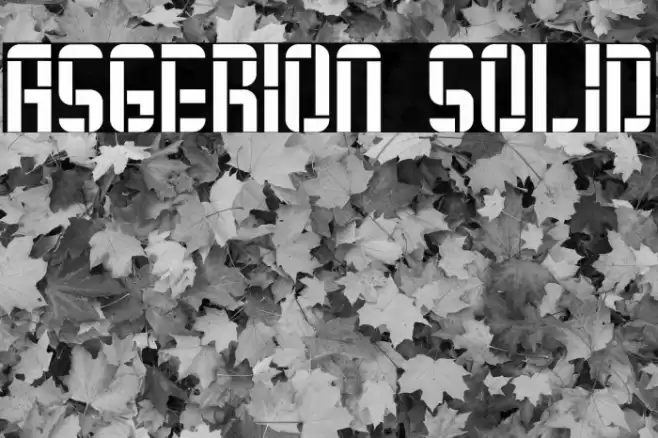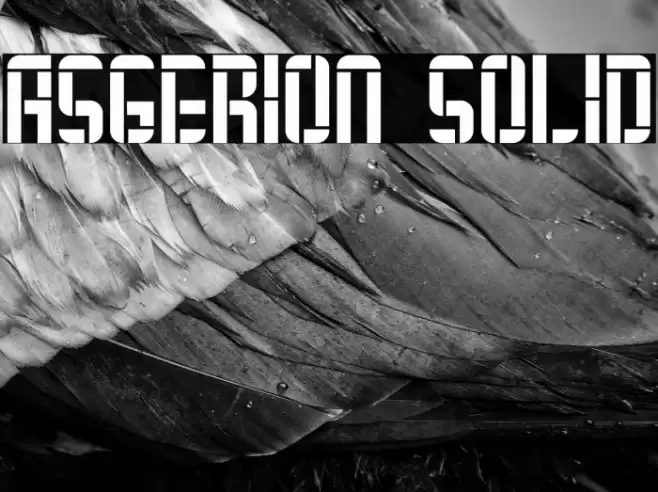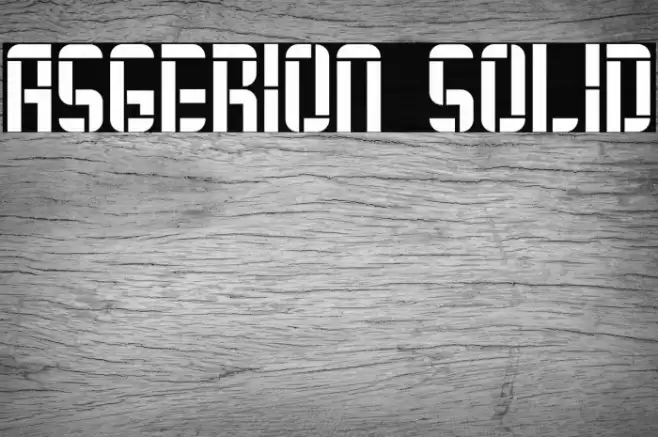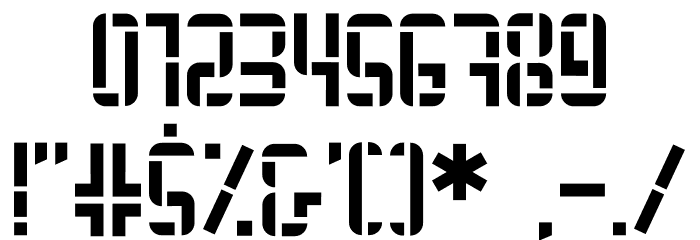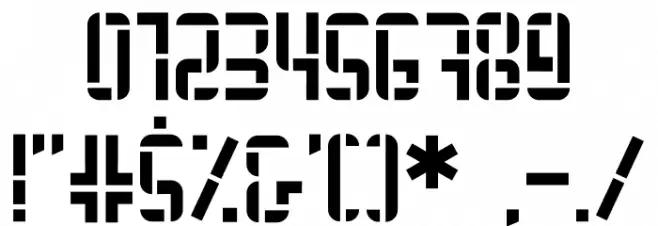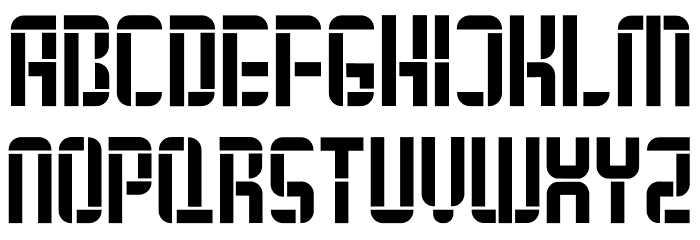
Asgerion Solid Font
Asgerion Solid Description
This font features a bold, geometric design with a stencil-like appearance. Each character is constructed with thick, solid lines and distinct cutouts, giving it a modern and industrial feel. The uppercase and lowercase letters maintain a consistent style, with the lowercase mirroring the uppercase in form. Numbers and special characters follow the same design principles, ensuring uniformity across all glyphs. The font's unique style makes it stand out, ideal for projects that require a strong visual impact.
A bold, geometric stencil font with a modern, industrial aesthetic from Uncategorized fonts.